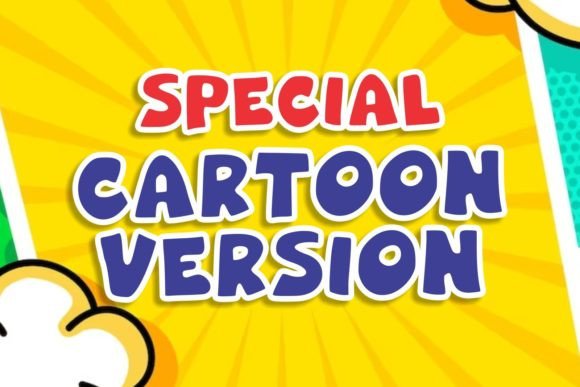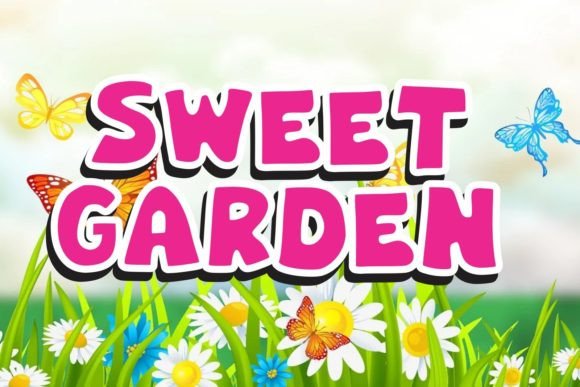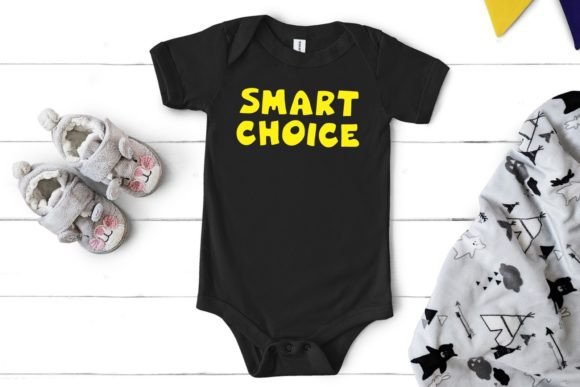
Introduction to Funny Smile Font
Funny Smile is a childish and playful display font that has its own signature.
Its informal and casual style makes it a top choice for any creation It will look cool on visual designs and works such as product packaging, T-shirts, labels, posters, logos, and more.